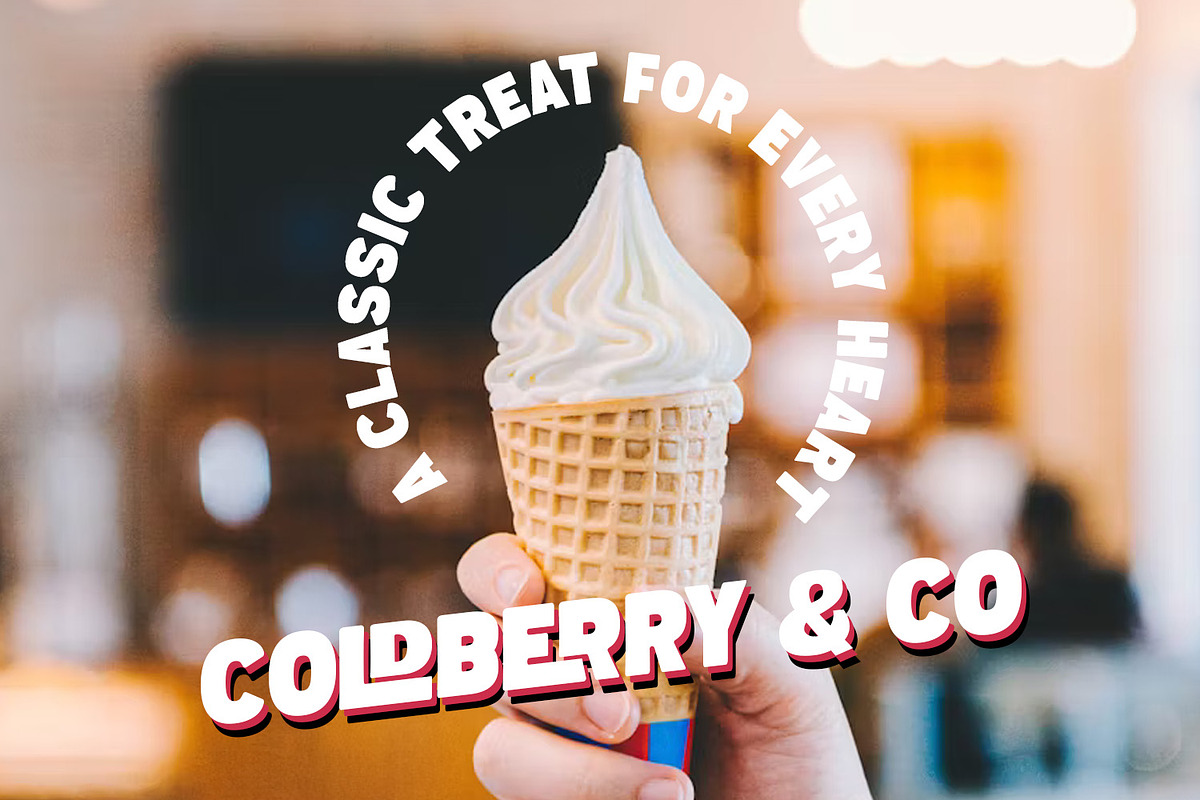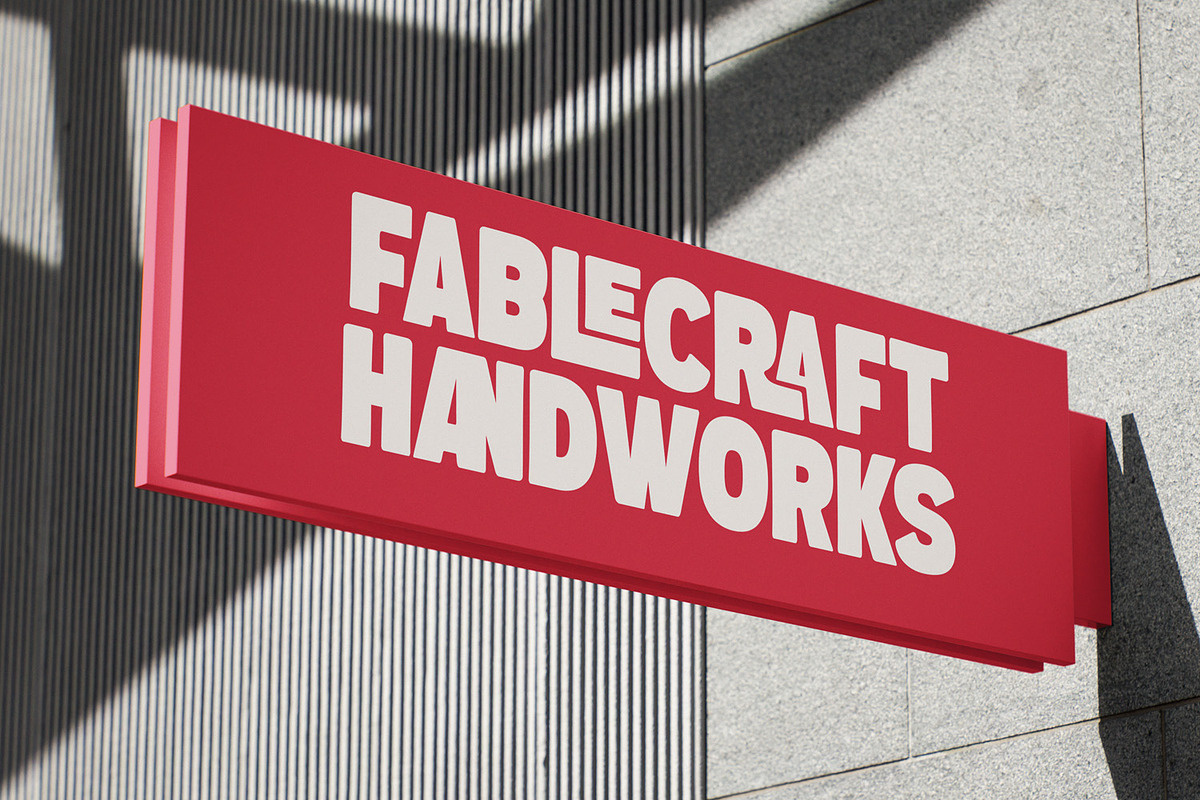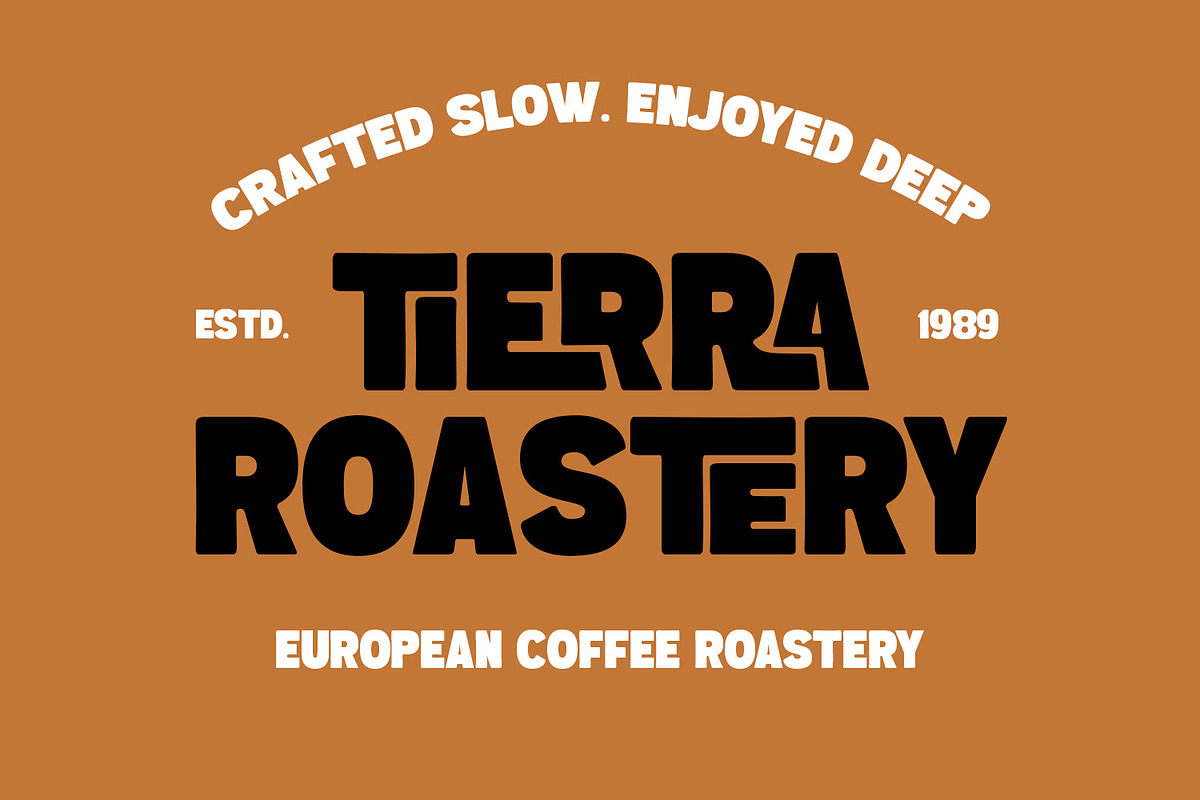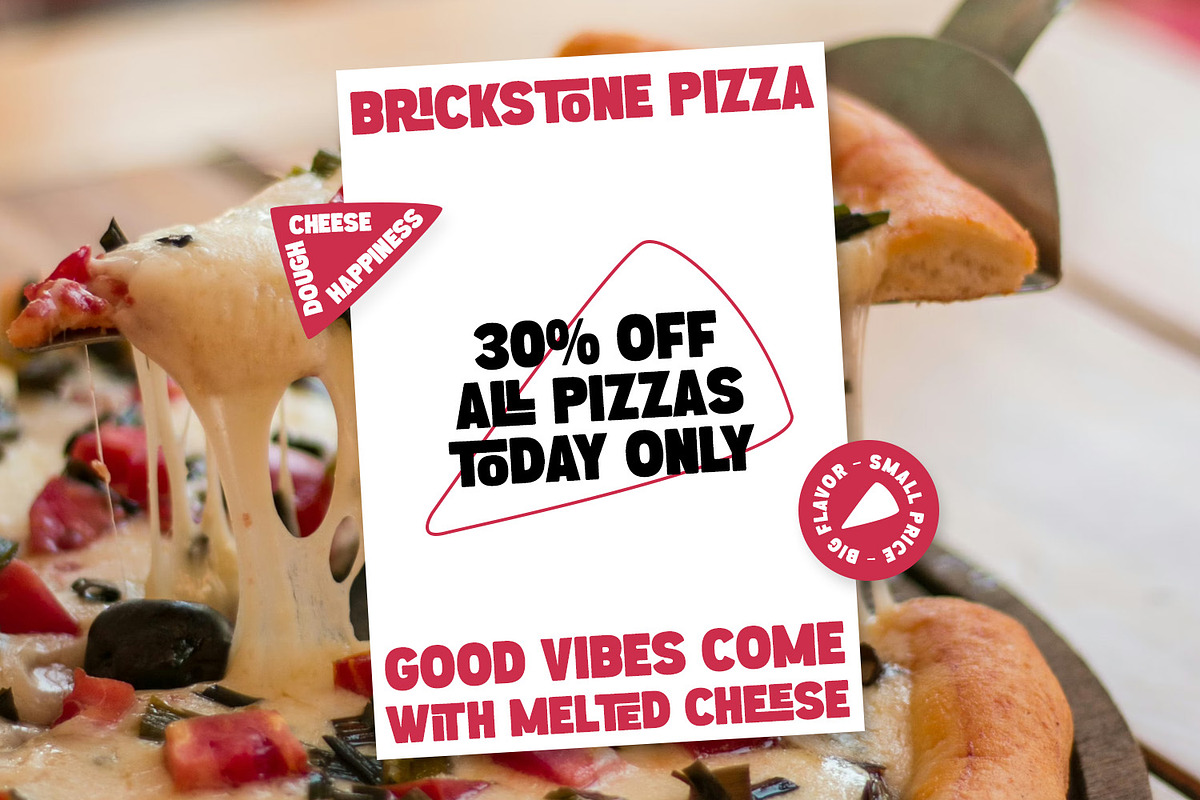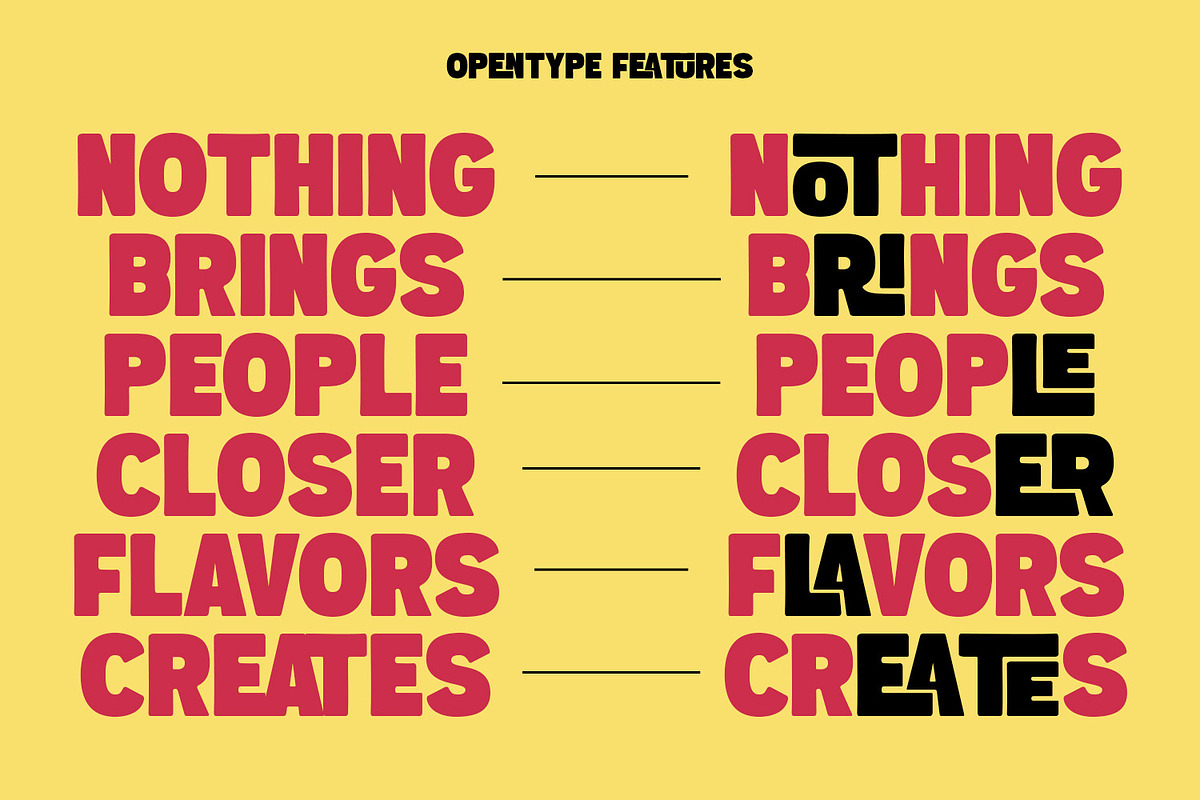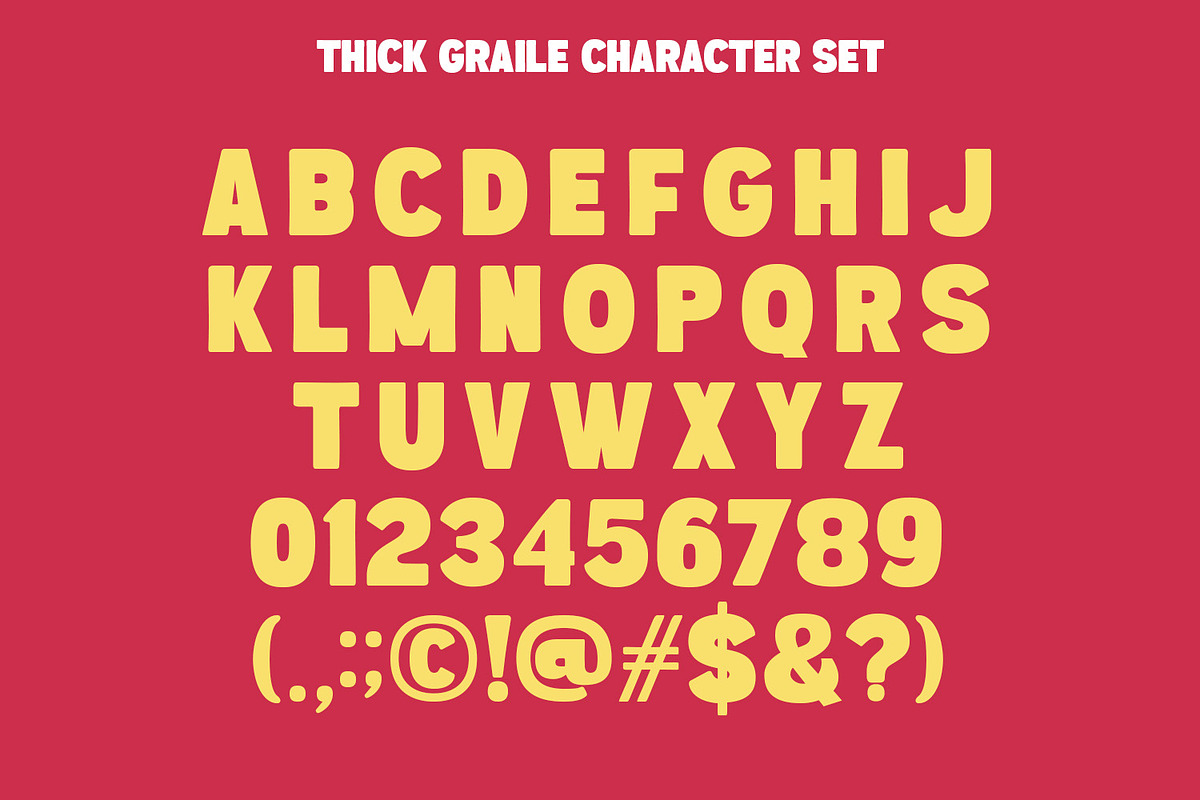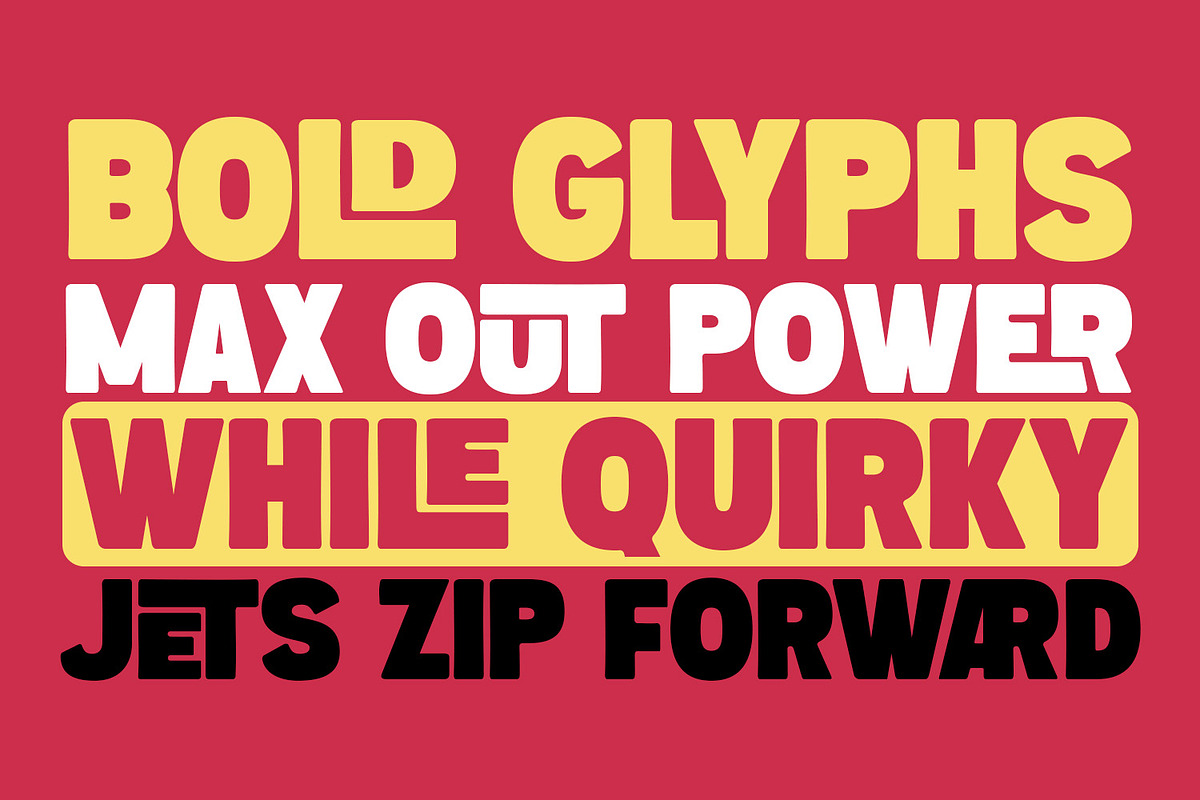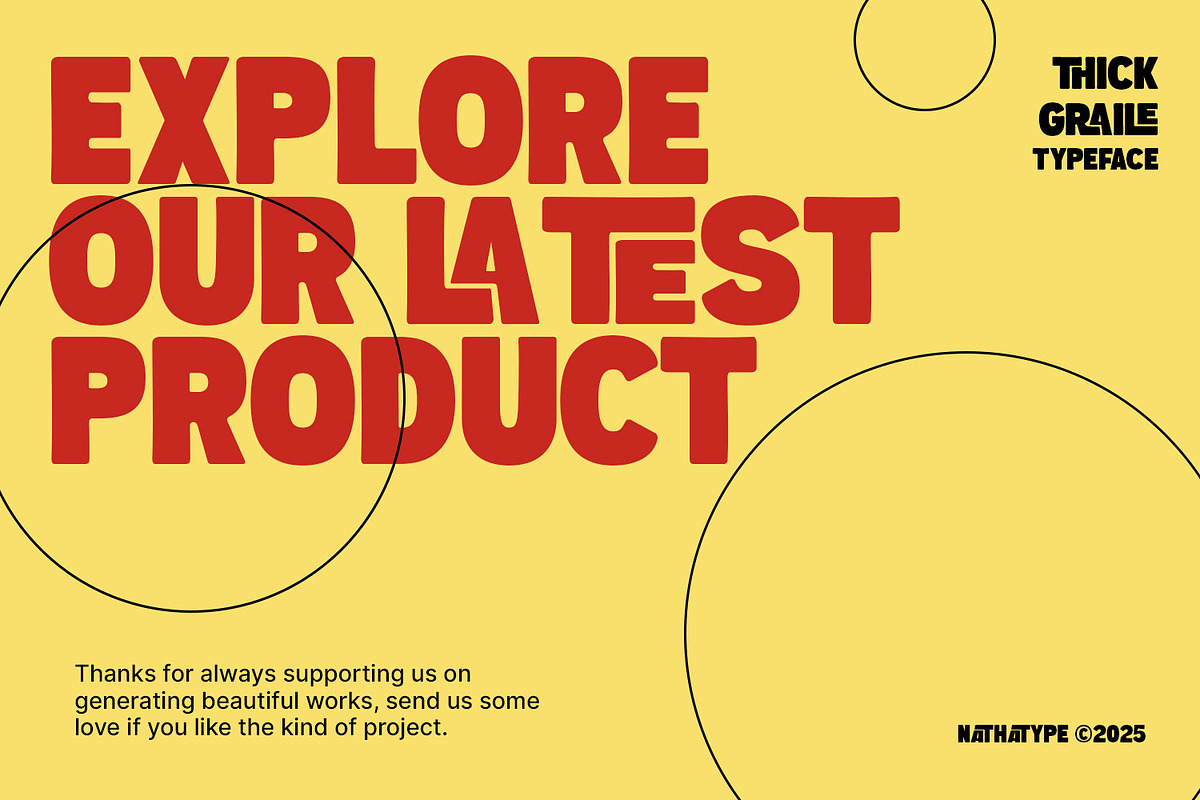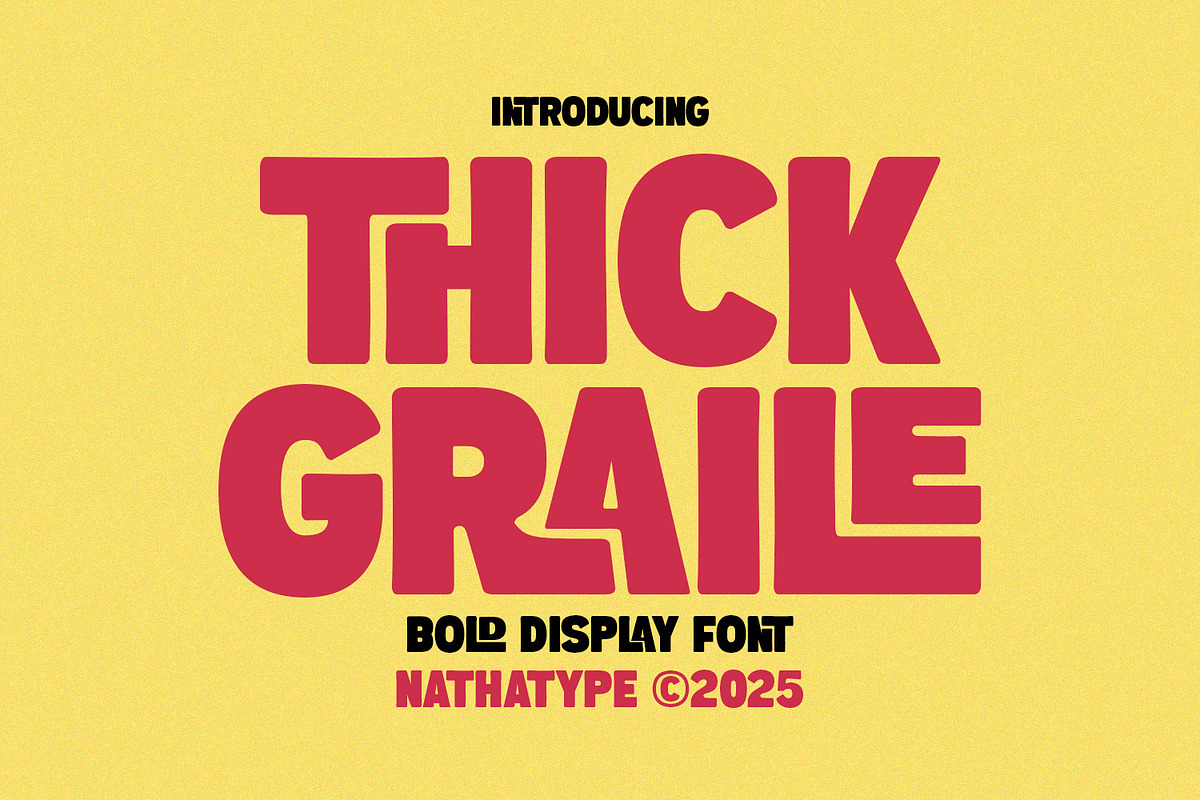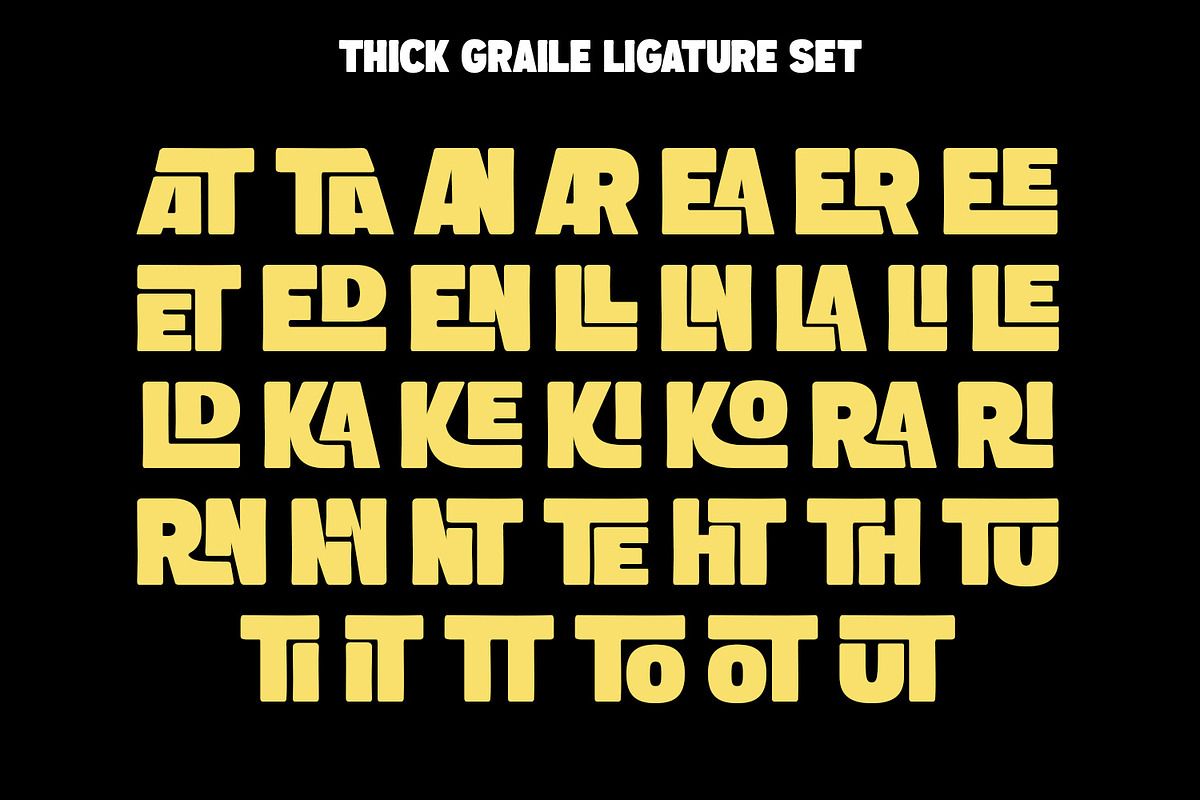
Thick Graile
Thick Graile is a powerful bold display font. Crafted in uppercases, thick, and rounded letterforms give Thick Graile a confident and solid presence. Its smooth, clean outline ensures crisp results in both print and digital formats, allowing your text to look polished and professional at any size. Thick Graile is perfect for designers who want bold typography that feels contemporary, professional, and highly readable. In addition, enjoy the features here.
Thick Graile fits in logos, quotes, branding, posters, and many more designs. Find out more ways to use this font by taking a look at the font preview.